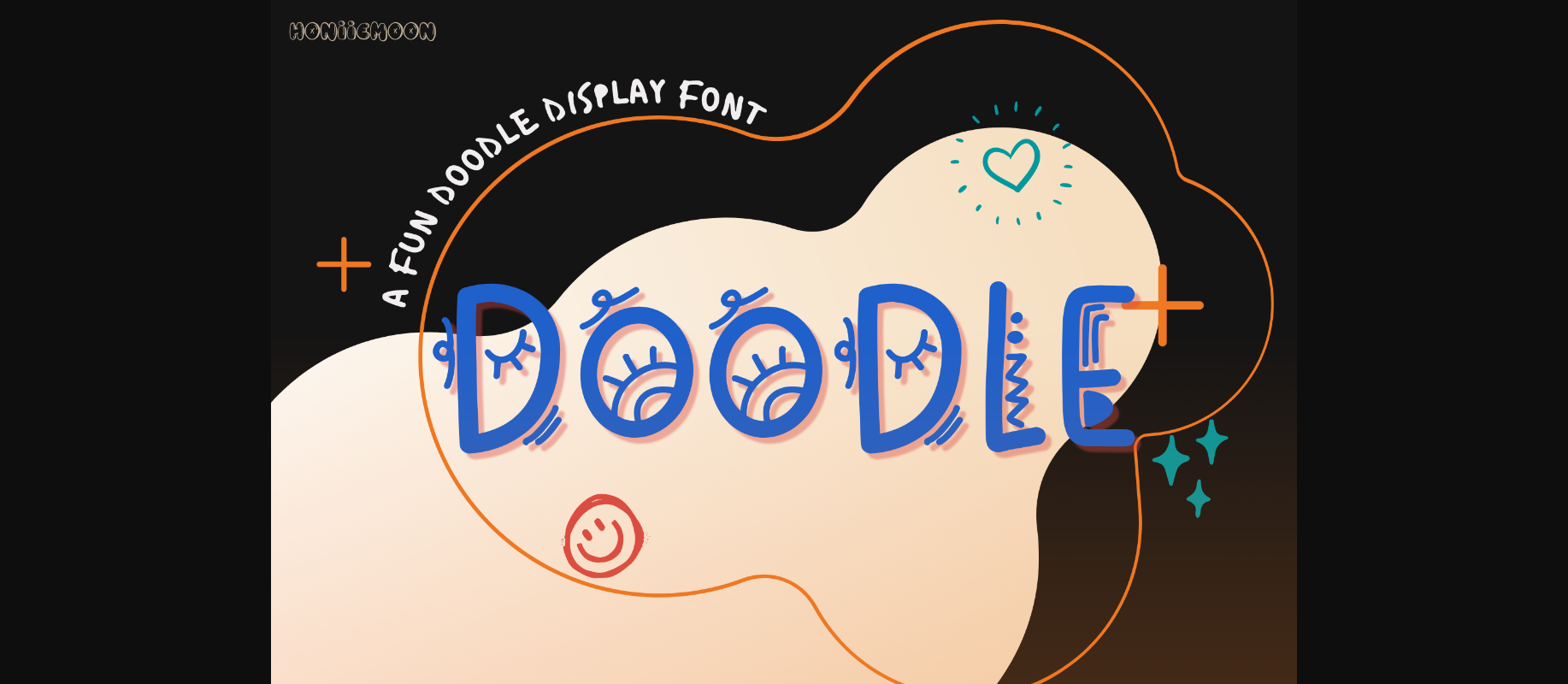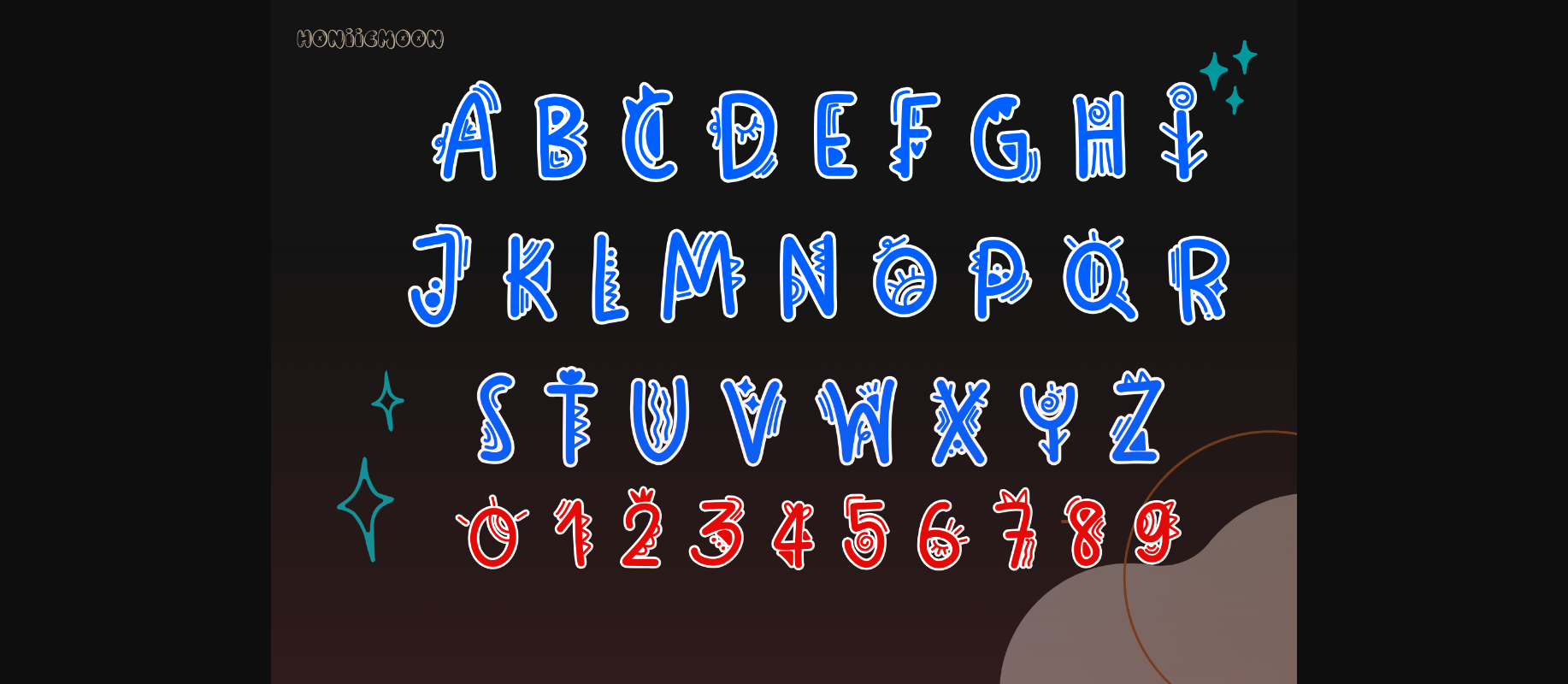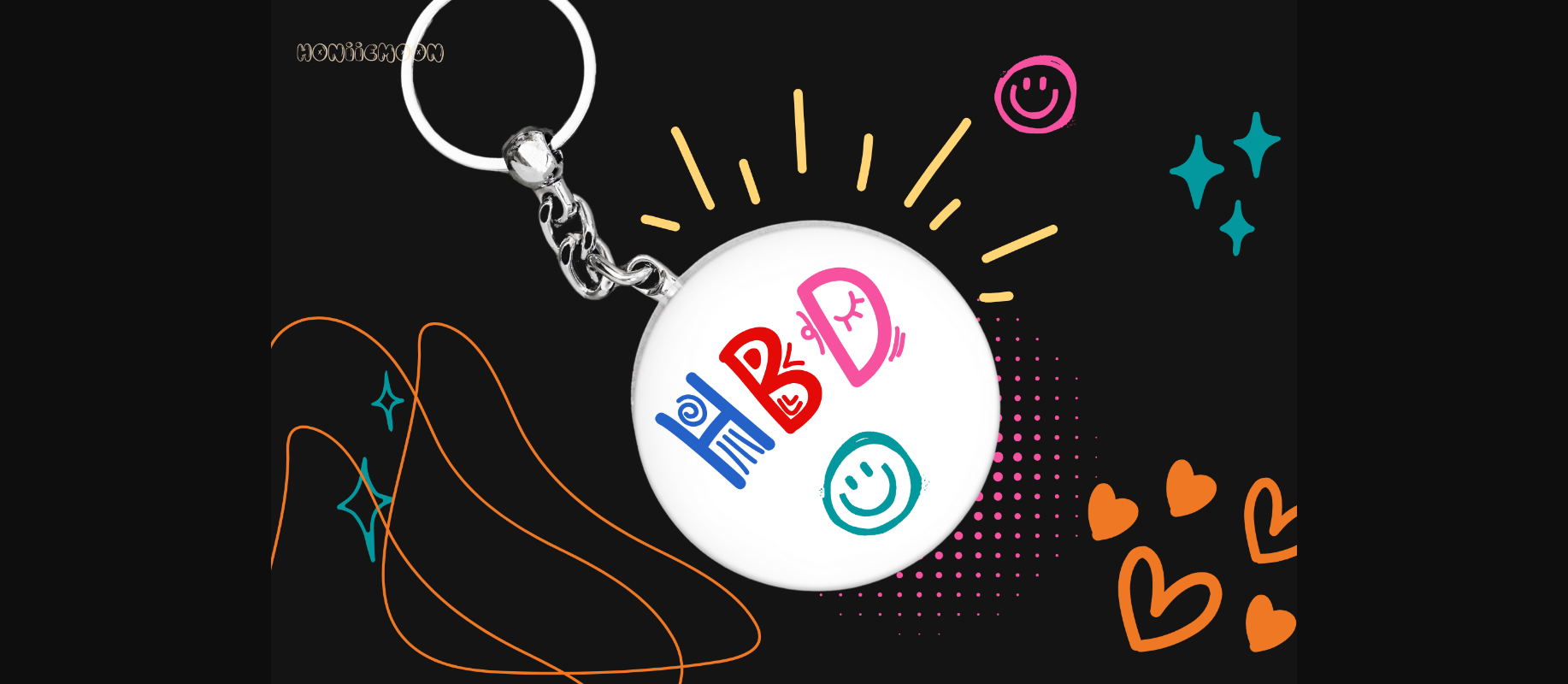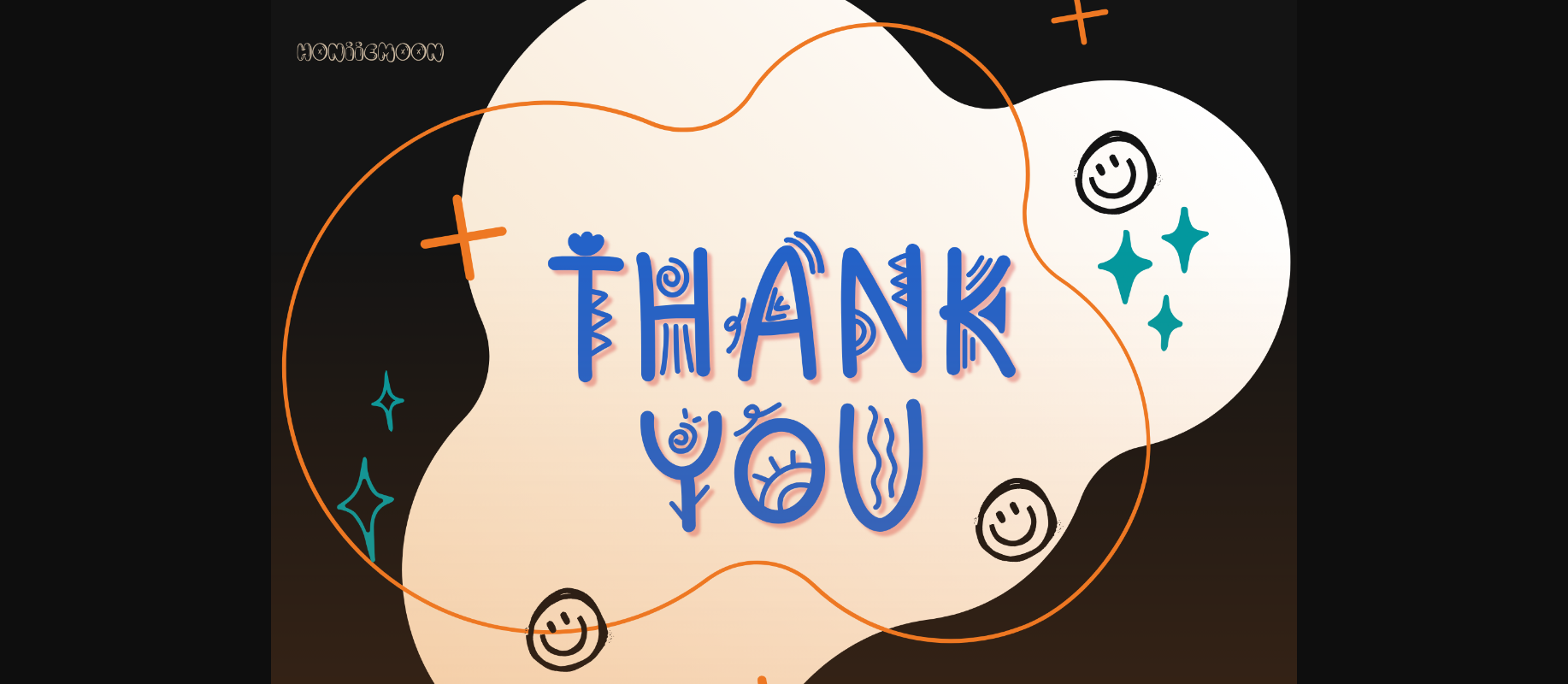
Doodle Font
About Doodle Font
Doodle is a fun and unique decorative display font, perfect for your favorite projects such as posters, flyers, social media, movie and book titles, invitations, stickers t-shirts, logos, advertisements, clothing, and so much more.